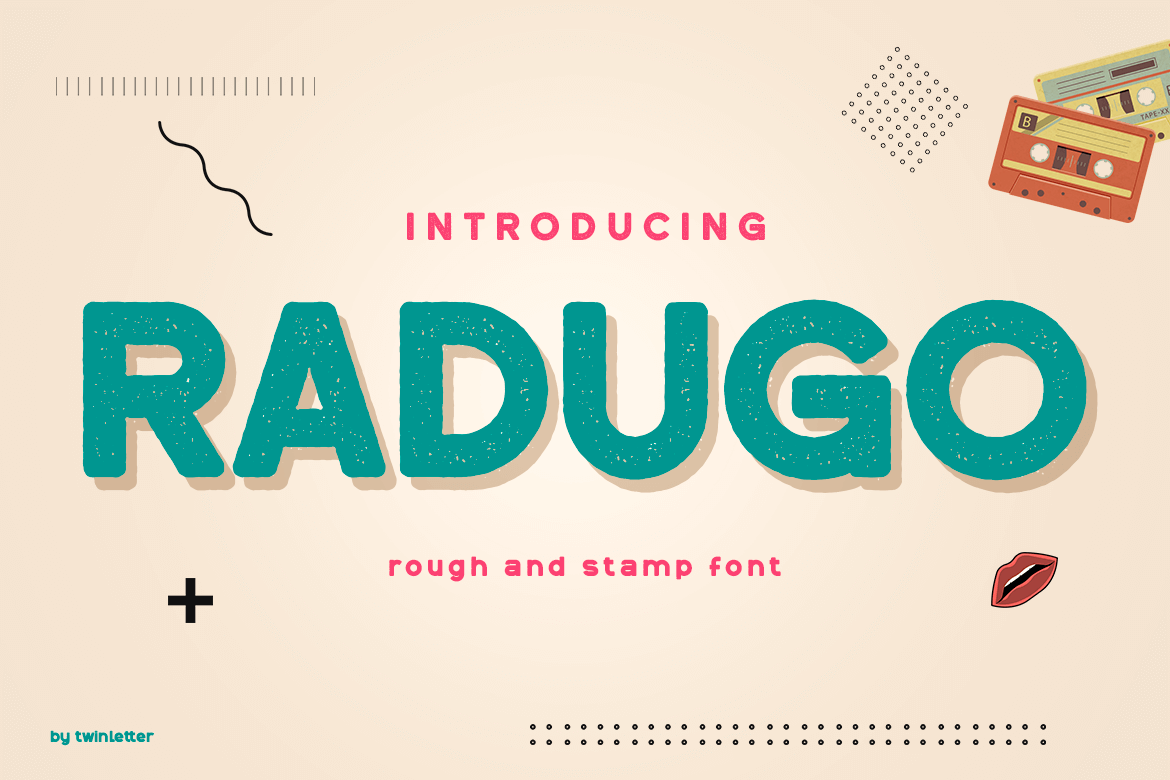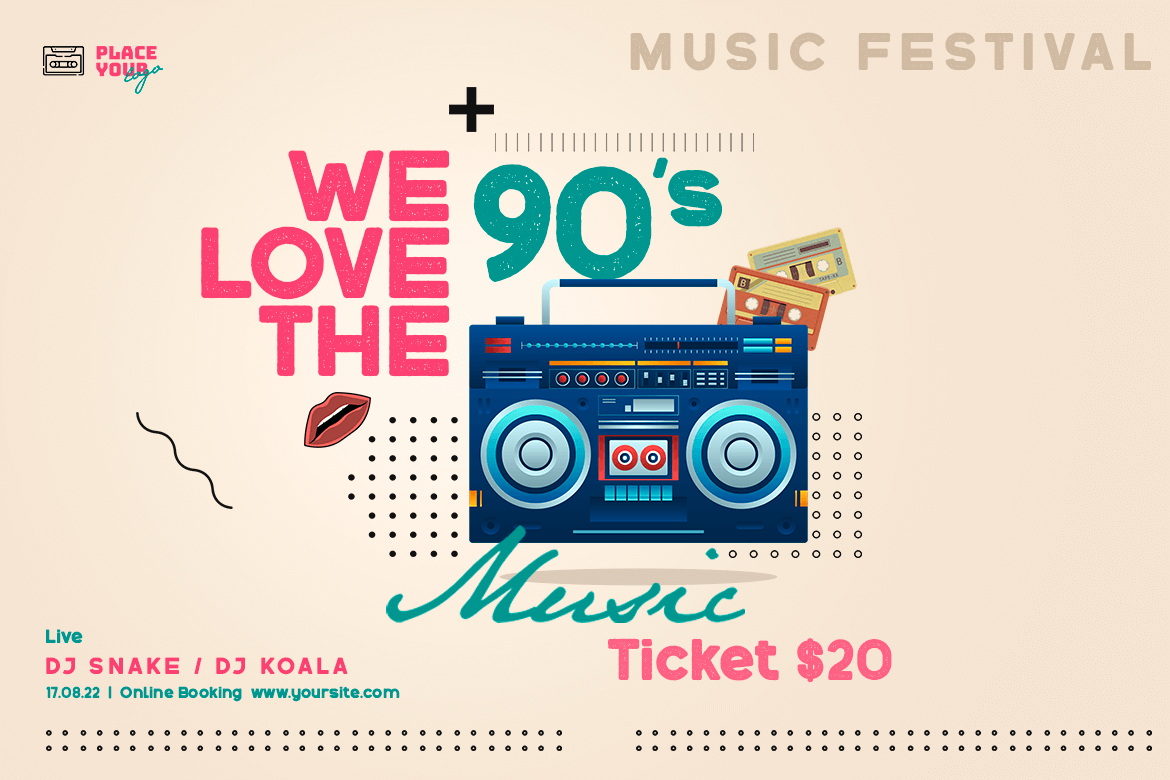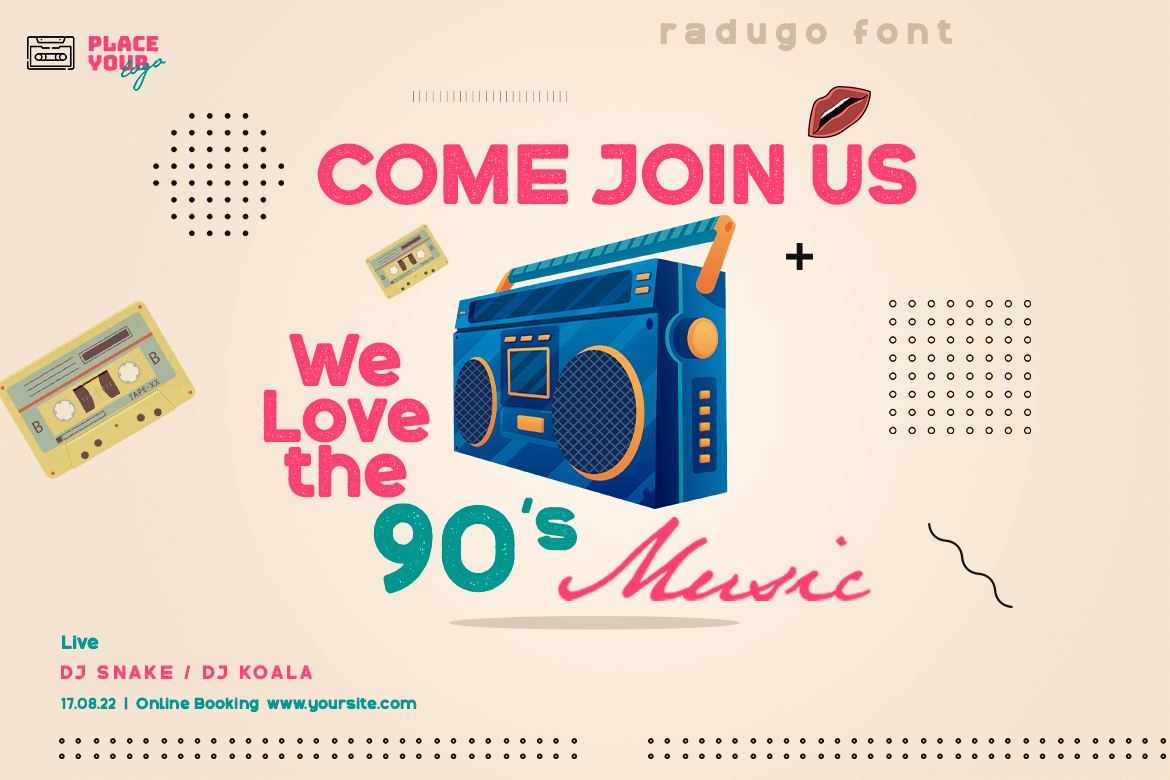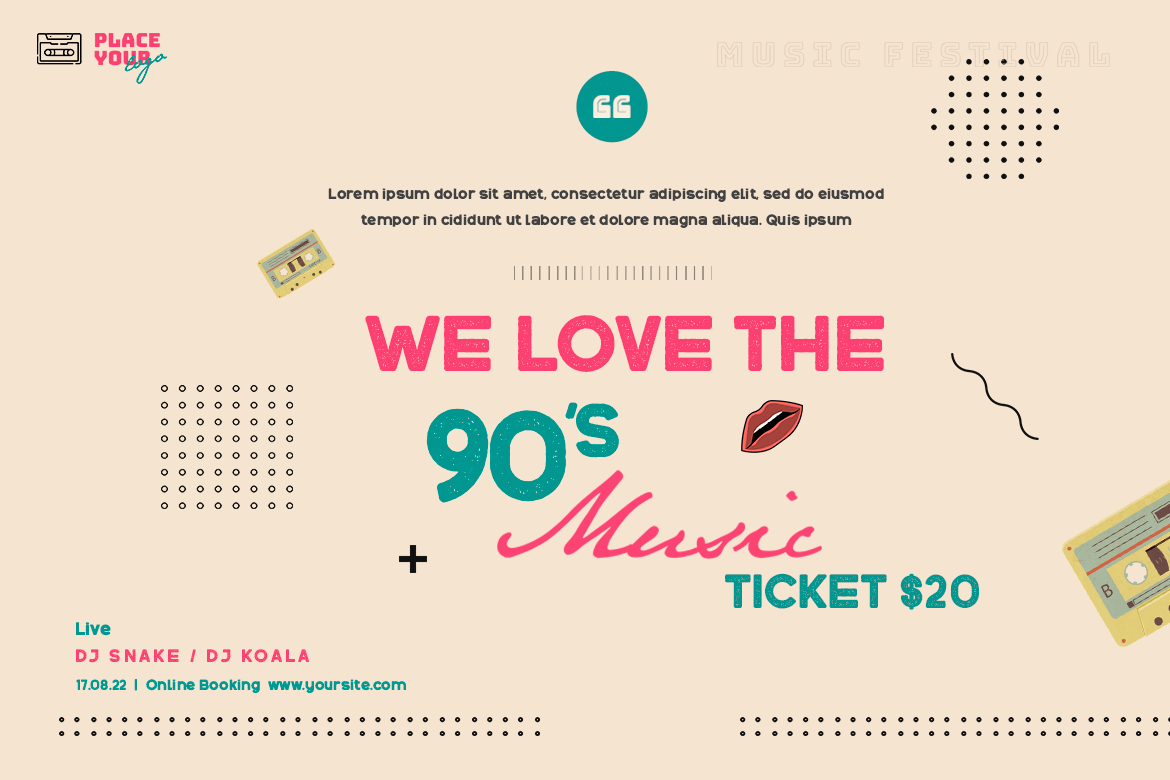
Radugo
Radugo is a san serif font family designed
with light strokes that make up a vintage style with a rustic touch and a stamp
with 2 fonts, as the ribs in your design work, and able to beautify and strengthen your work in the form of logotypes, typography, hand lettering, packaging, t-shirts, labels, and many more.